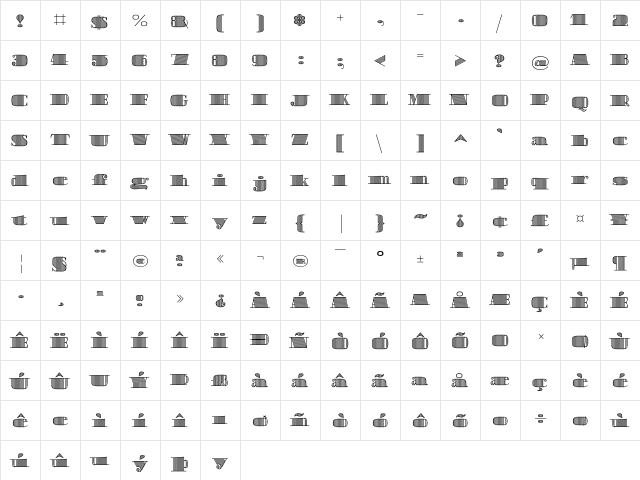
Boldoni Gray
| Foundry | by Jarbas Gomes |
Design Context for Boldoni Typeface
Boldoni is a composed and adaptable typeface that performs quietly and consistently across a wide range of design contexts. The heavy weight commands attention and anchors typographic hierarchies.